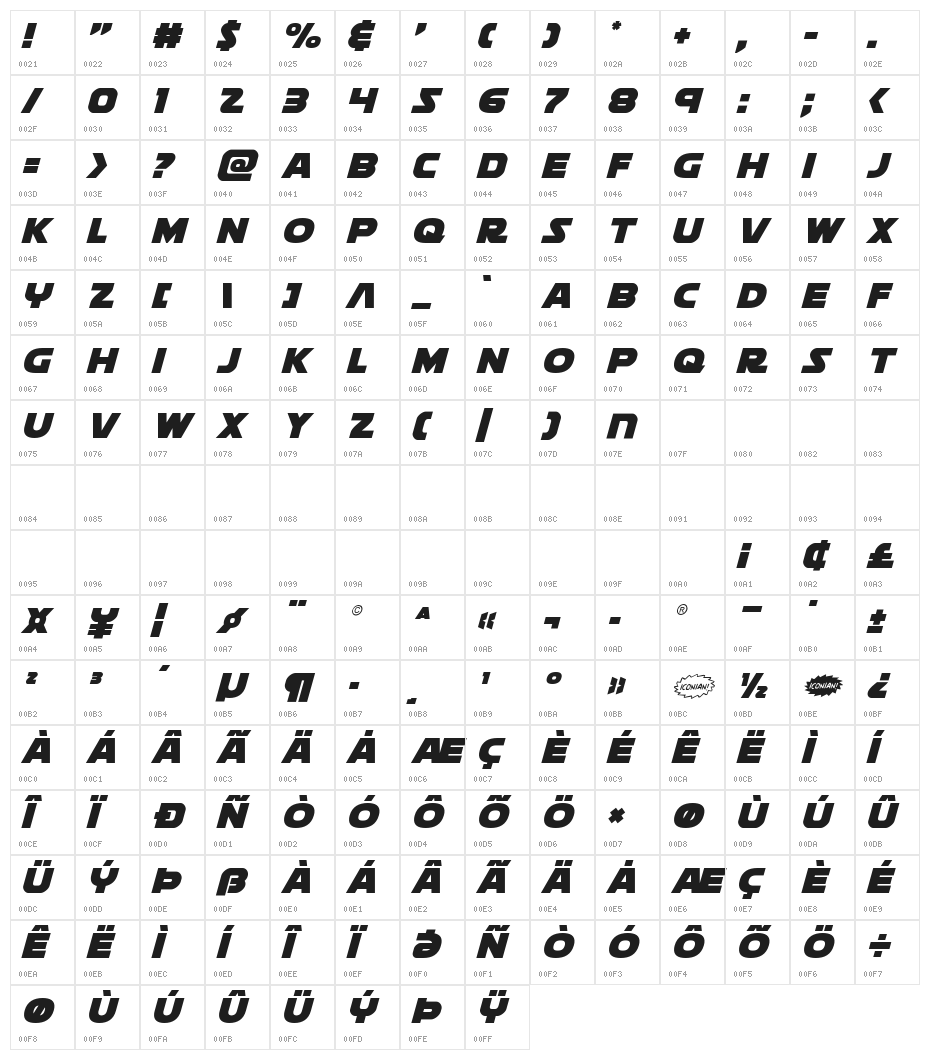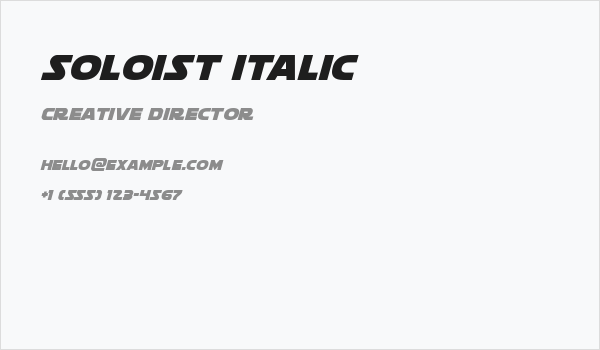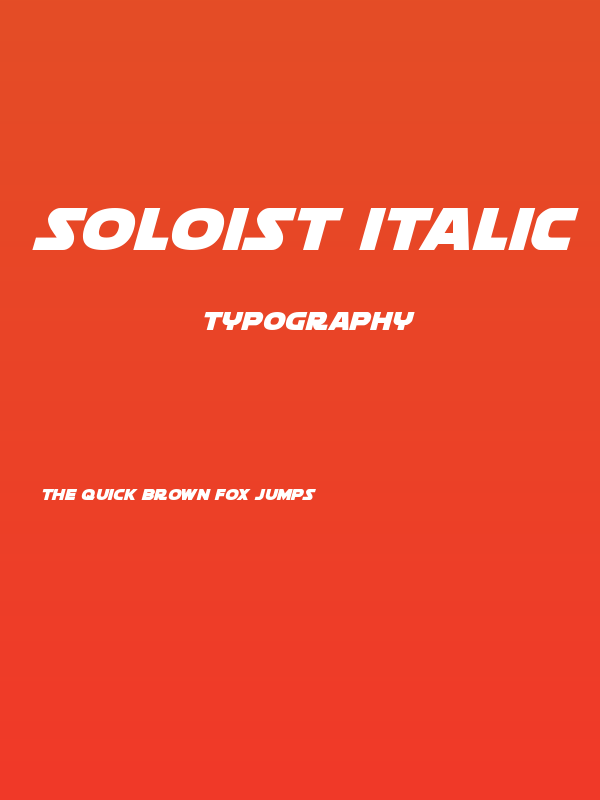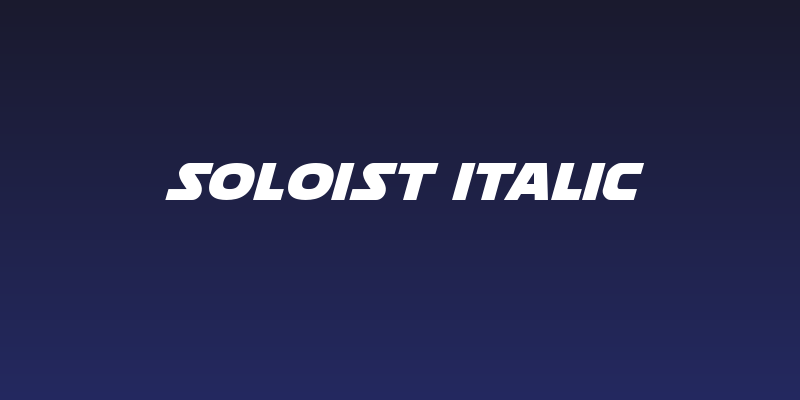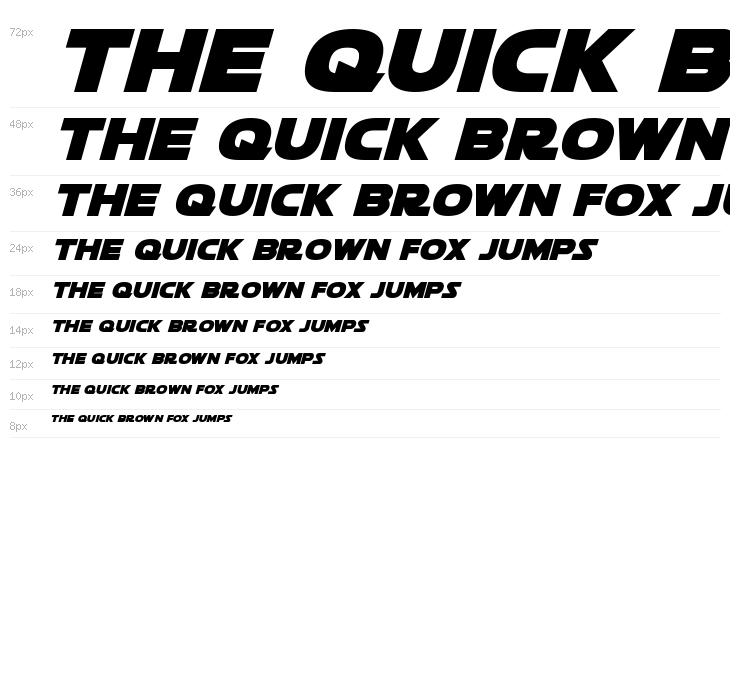
Soloist Italic Font
Soloist Italic Description
This font features a dynamic and bold italic style, characterized by its strong slant and thick strokes. The letters are designed with a modern flair, offering a sense of movement and energy. The uppercase and lowercase characters maintain a consistent weight, providing a cohesive look across all text. Numbers and special characters are equally bold, ensuring readability and impact. The overall design is sleek and contemporary, making it suitable for a variety of applications where a strong visual presence is desired.
| Proposed Projects | Ideal for sports branding, dynamic posters, modern advertisements, and any project requiring a bold statement. |